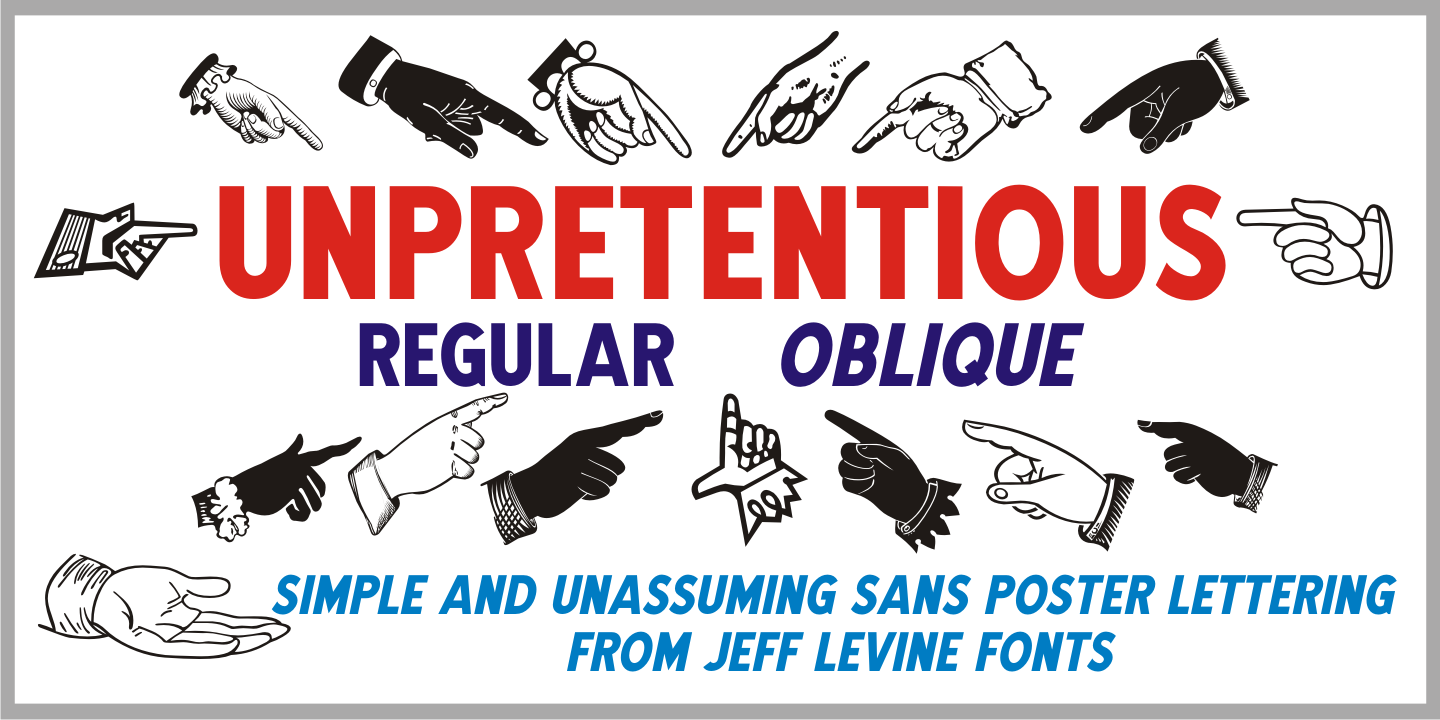
Unpretentious JNL Font is perfect for casual dining restaurant menus, friendly neighborhood business signage, approachable community organizations, down-to-earth lifestyle brands, honest local services, straightforward educational materials, authentic family-owned shops, and genuine grassroots marketing campaigns. This honest typeface excels in community-focused applications, accessible design projects, and any creative work requiring authentic simplicity that communicates genuine approachability and unpretentious reliability through honest visual communication.
What makes Unpretentious JNL Font exciting is its refreshing ability to embody authentic simplicity and genuine approachability through honestly crafted letterforms that speak directly and clearly without artifice or pretense. The font features straightforwardly designed characters with natural curves and honest proportions that evoke feelings of trustworthy reliability and authentic connection, making it ideal for brands seeking to establish genuine relationships with everyday audiences and communicate through unpretentious visual language. Its honest presence ensures immediate recognition of authentic reliability and genuine approachability.
Unpretentious JNL Font family includes multiple weights and styles: Regular, Bold, Light, Medium, Italic variations, and honest alternates with straightforward embellishments and genuine decorative elements. Each family member maintains the distinctive authentic character while offering comprehensive design options for community campaigns, from honest informational text to straightforward headlines that establish genuine authority and authentic credibility through unpretentiously reliable typography.
Whether you're designing community-focused brand identities or creating honest local campaigns, Unpretentious JNL Font Free Download provides the perfect typography solution for authentic branding needs. This font transforms ordinary text into genuine conversational statements that communicate honest reliability and authentic approachability. Local businesses and community organizations choose this typeface for its ability to convey unpretentious authenticity through honestly crafted letterforms that connect through designs with genuine warmth and celebrate the beautiful simplicity of honest communication.